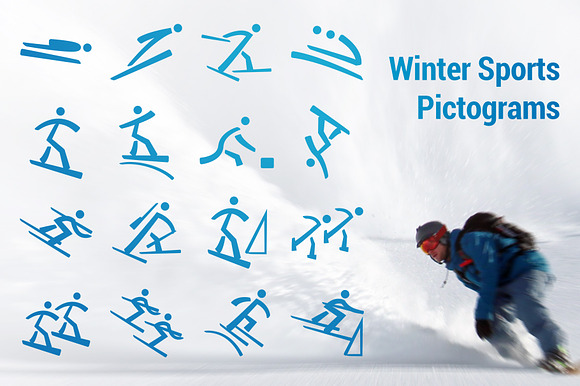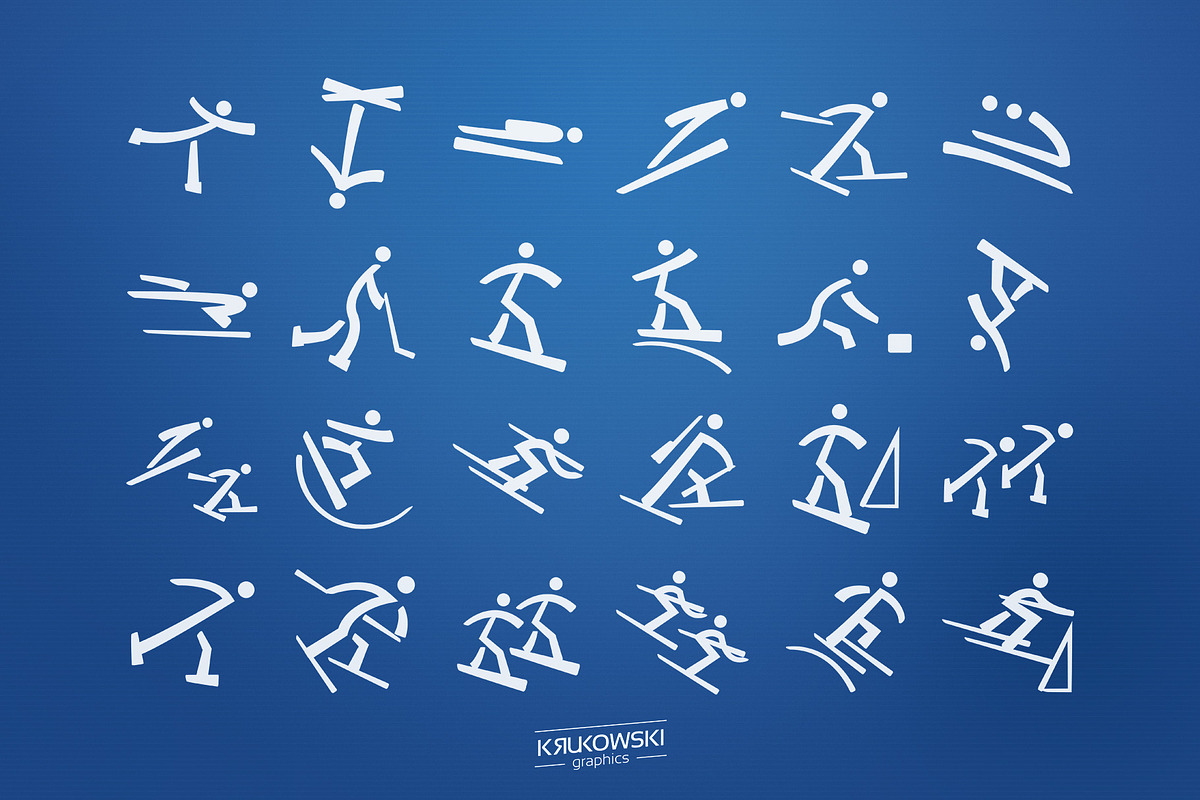
Winter Olympic Pictograms Font
24 winter Sports Icons in one handy font. Pictograms are made in Winter Olympic Games 2018 Style. Perfectly for materials related to the Olympics in Pyeongchang, Korea.
Winter Olympic Pictograms Font by Krukowski Graphics fits naturally into Branding, posters, packaging, typography.